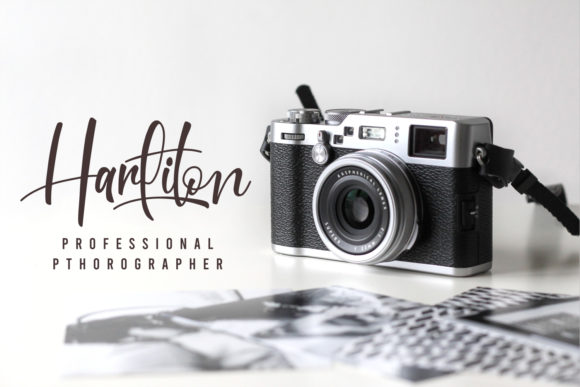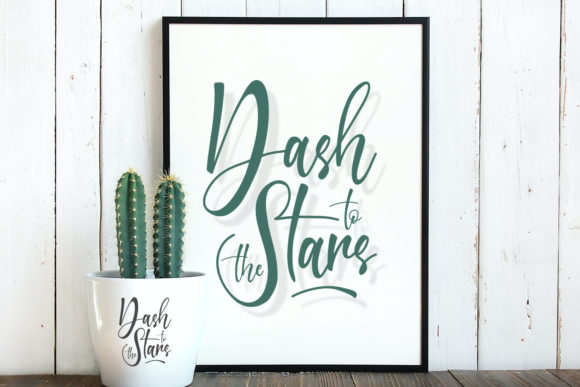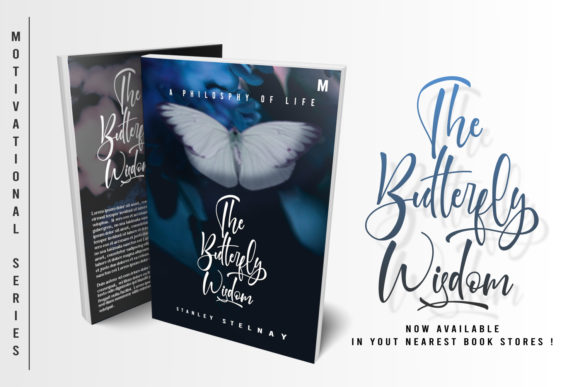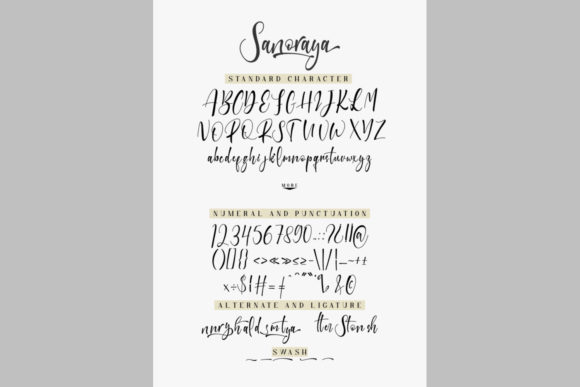
Introduction to Sanoraya Font
Remember that moment when you stumbled upon the perfect font for your creative project, and everything just fell into place? For many designers, it’s a moment of pure joy and excitement. And if you’re reading this, you might be on the hunt for that elusive perfect font. Look no further, as we’re about to introduce you to the stunning Sanoraya Font.
This beautiful handwritten font has captured the hearts of many designers, and for good reason. With its delicate and timeless design, it adds a touch of elegance to any project, whether it’s a wedding invitation, a thank you card, or a logo. The Sanoraya Font is a valuable design resource that offers a high-quality, free download with a transparent background, making it perfect for designers who want to add a handwritten touch to their work.
Whether you’re a seasoned pro or just starting out, the Sanoraya Font is an excellent addition to your design arsenal. Its versatility and beauty make it a must-have for any creative project, and we can’t wait to share its story with you.
Key Features of Sanoraya Font
- High-quality, elegant design ideal for creative projects and design resources.
- Unique, cursive script style that adds a touch of sophistication to any design.
Honest Review: Sanoraya Font
I recently came across the Sanoraya Font, and I must say it’s a great addition to any design resource. This free download has been a game-changer for my creative project.
- High-quality design: The Sanoraya Font is meticulously crafted with attention to detail, resulting in a professional-looking font.
- Transparent background: This feature makes it easy to use the font on various backgrounds, ensuring seamless integration into any design.
- Wide range of styles: The font offers a variety of styles, making it suitable for a wide range of creative projects.
Overall, I’m impressed with the Sanoraya Font. It’s a high-quality design resource that’s perfect for any creative project. While there are some limitations, the benefits far outweigh them.
- ⚠️ Limited customizability: While the font offers a range of styles, it’s not easily customizable, which might be a limitation for some designers.
- ⚠️ Not suitable for small text: The font’s size and style may not be suitable for small text, which could be a limitation for certain design projects.
How to Use Sanoraya Font
The Sanoraya Font is a high-quality design resource ideal for various creative projects. Its transparent background and sleek design make it a versatile choice for designers.
For the best results, use the Sanoraya Font in conjunction with a high-contrast background. Experiment with different font sizes and styles to create visually appealing designs.
The Sanoraya Font is ideal for a variety of creative projects, including:
- Business cards and stationery